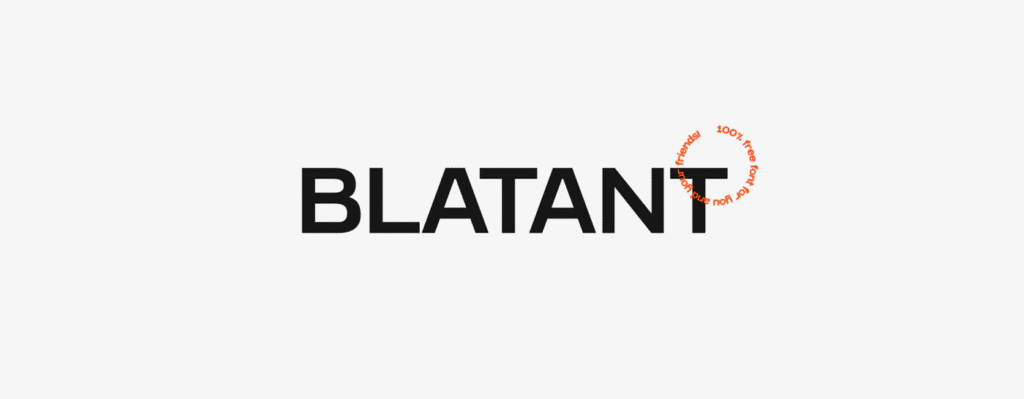
I present Blatant, a versatile typeface that seeks to attract attention so that it does not go unnoticed in any visual piece. It is distinguished by its extensive set of alternative signs in a tall box. I invite you to download Blatant and be part of your projects. Thanks for the support!